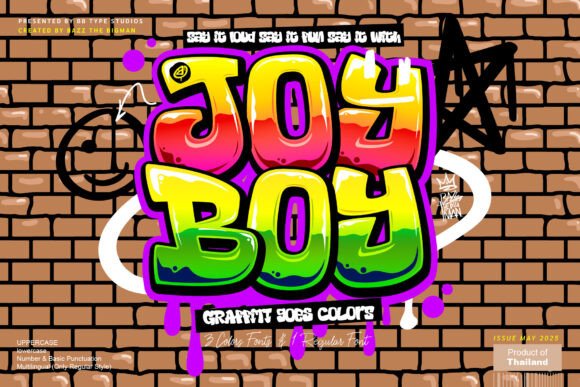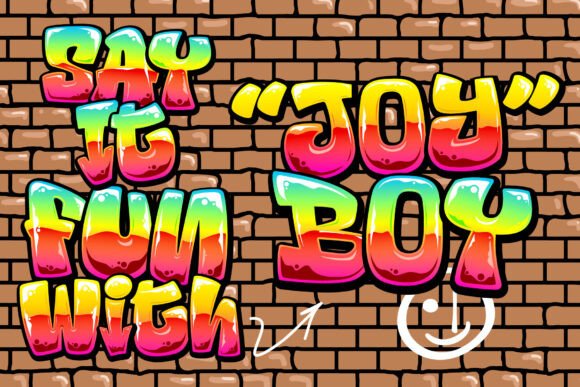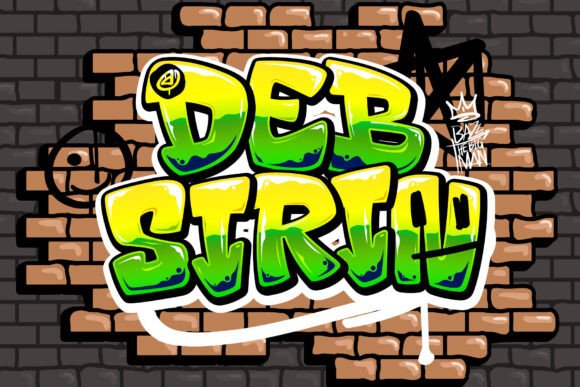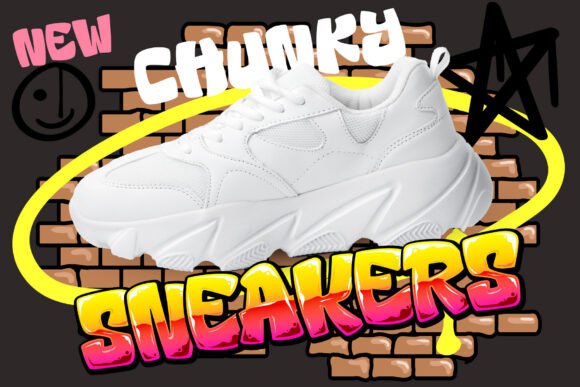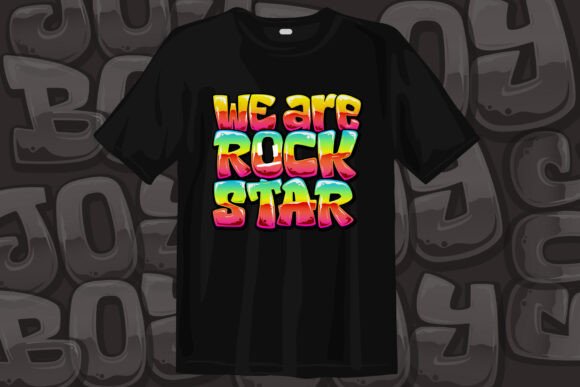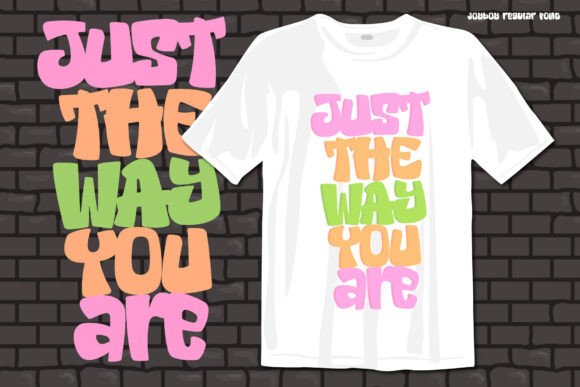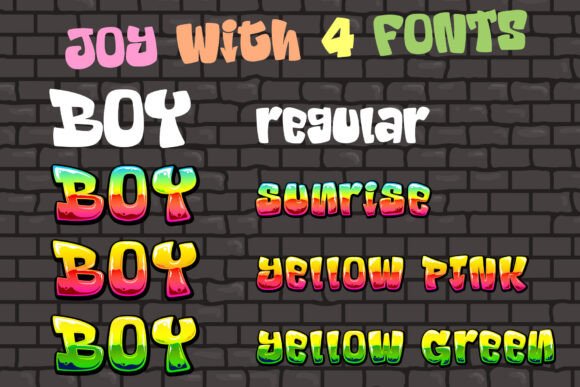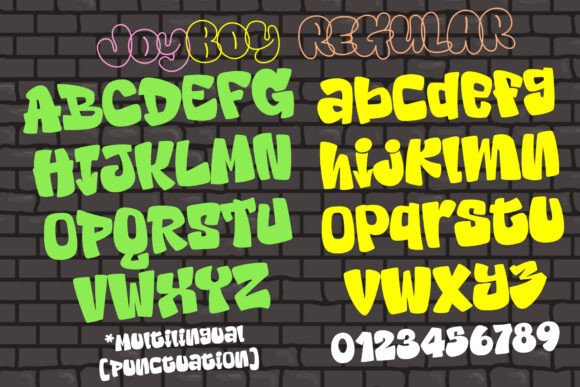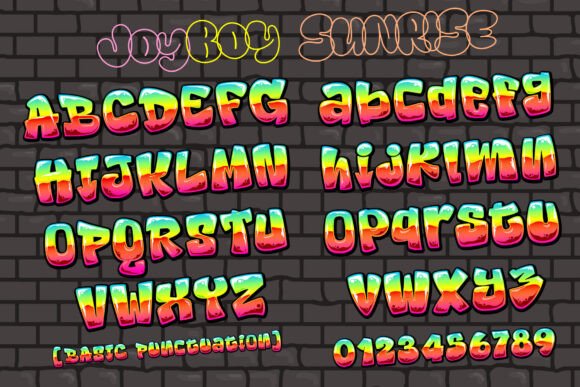
Joy Boy Font
Unleash your vibrant creativity through Joy Boy, a daring, street-chic color font that exudes raw attitude. Reflective of graffiti bravura, every letter speaks volume, exploding with riotous hues to instill a new level of urban dynamism. Perfectly suited for logos, posters, music merchandise, or anything that seeks to shatter the monotonous grey. Stand out with Joy Boy and let your work echo with the pulsating rhythm of the streets.